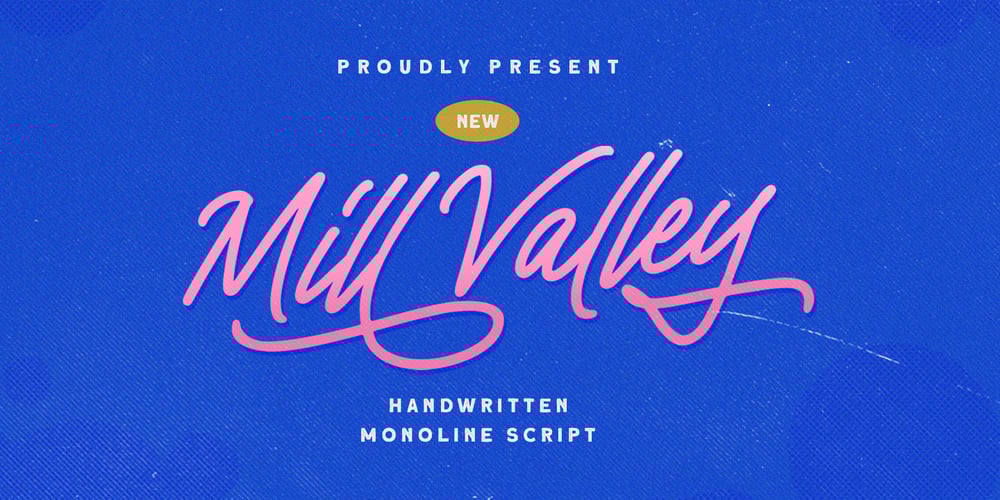
Mill Valley Font Family was designed by Hendry Juanda and published by Letterhend. Mill Valley contains 1 styles and family package options. Mill Valley is a monoline script with a casual and fun theme. This type of font perfectly made to be applied especially in logo, headline, signage and the other various formal forms such as invitations, labels, logos, magazines, books, greeting / wedding cards, packaging, fashion, make up, stationery, novels, labels or any type of advertising purpose.Features : uppercase & lowercase numbers and punctuation multilingual alternates / swashes and ligatures PUA encoded We highly recommend using a program that supports OpenType features and Glyphs panels like many of Adobe apps and Corel Draw, so you can see and access all Glyph variations.